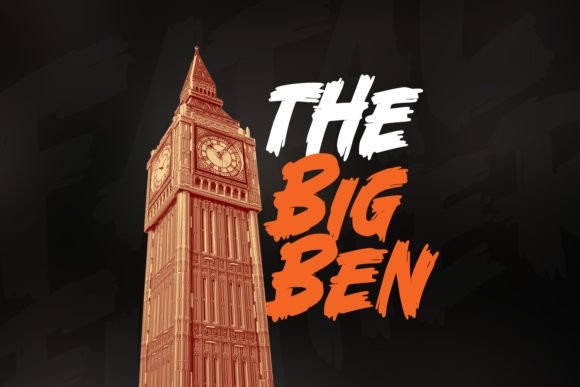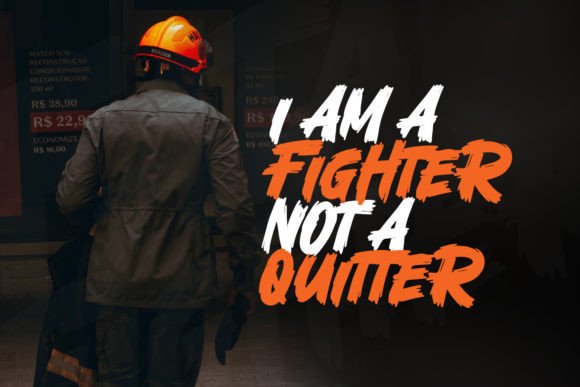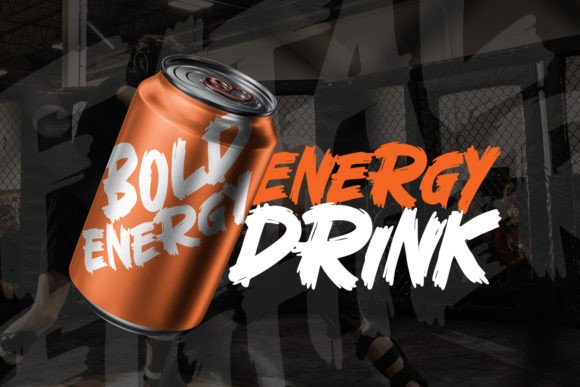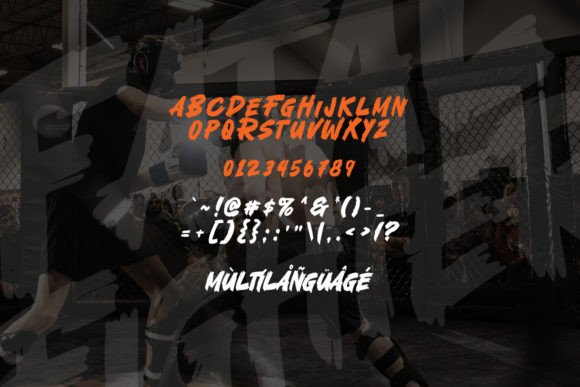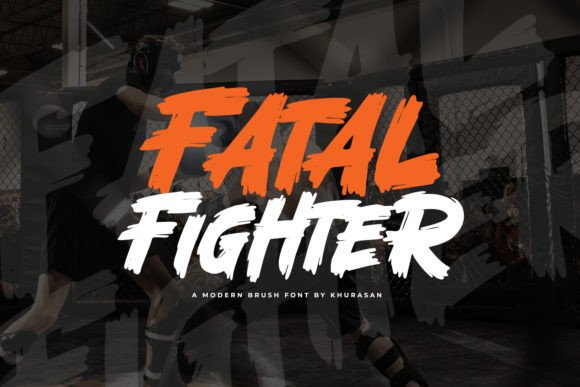
Introducing Fatal Fighter Font: The Ultimate Modern Bold Brush Font
Are you tired of using the same old fonts for your designs? Look no further! Fatal Fighter Font is here to revolutionize your creative projects with its modern bold brush style. This quirky handwritten font is perfect for designers and crafters who want to add a touch of personality to their work. In this article, we’ll dive into the features and benefits of Fatal Fighter Font, and explore how it can elevate your designs to the next level.
What is Fatal Fighter Font?
Fatal Fighter Font is a modern bold brush font that is designed to make a statement. Its unique and quirky handwritten style makes it perfect for a wide range of projects, from posters and logos to magazines, book covers, and banners. With its bold and expressive strokes, Fatal Fighter Font is sure to grab attention and leave a lasting impression.
Key Features of Fatal Fighter Font
- Modern Bold Brush Style: Fatal Fighter Font boasts a modern bold brush style that is both trendy and timeless.
- Quirky Handwritten Look: The font’s quirky handwritten look adds a touch of personality to any design.
- Highly Versatile: Fatal Fighter Font can be used for a wide range of projects, from posters and logos to magazines, book covers, and banners.
- Easily Customizable: The font is easily customizable, making it perfect for designers who want to experiment with different styles and effects.
Benefits of Using Fatal Fighter Font
So, why should you choose Fatal Fighter Font for your designs? Here are just a few benefits of using this amazing font:
- Adds Personality to Your Designs: Fatal Fighter Font’s quirky handwritten style adds a touch of personality to any design, making it stand out from the crowd.
- Increases Readability: The font’s bold and expressive strokes make it easy to read, even at small sizes.
- Perfect for Branding: Fatal Fighter Font is perfect for creating unique and memorable brand identities.
- Great for Creative Projects: The font is ideal for creative projects, such as posters, flyers, and brochures.
How to Use Fatal Fighter Font
Using Fatal Fighter Font is easy! Here are a few tips to get you started:
- Pair it with Other Fonts: Pair Fatal Fighter Font with other fonts to create a unique and interesting contrast.
- Use it for Headlines: Use Fatal Fighter Font for headlines and titles to add a touch of personality and flair.
- Try it for Logos: Try using Fatal Fighter Font for logos and branding to create a unique and memorable identity.
In conclusion, Fatal Fighter Font is a modern bold brush font that is perfect for designers and crafters who want to add a touch of personality to their work. With its quirky handwritten style and highly versatile design, Fatal Fighter Font is sure to elevate your designs to the next level. Whether you’re creating posters, logos, magazines, book covers, or banners, Fatal Fighter Font is the perfect choice. So why wait? Get your hands on Fatal Fighter Font today and start creating stunning designs that stand out from the crowd!